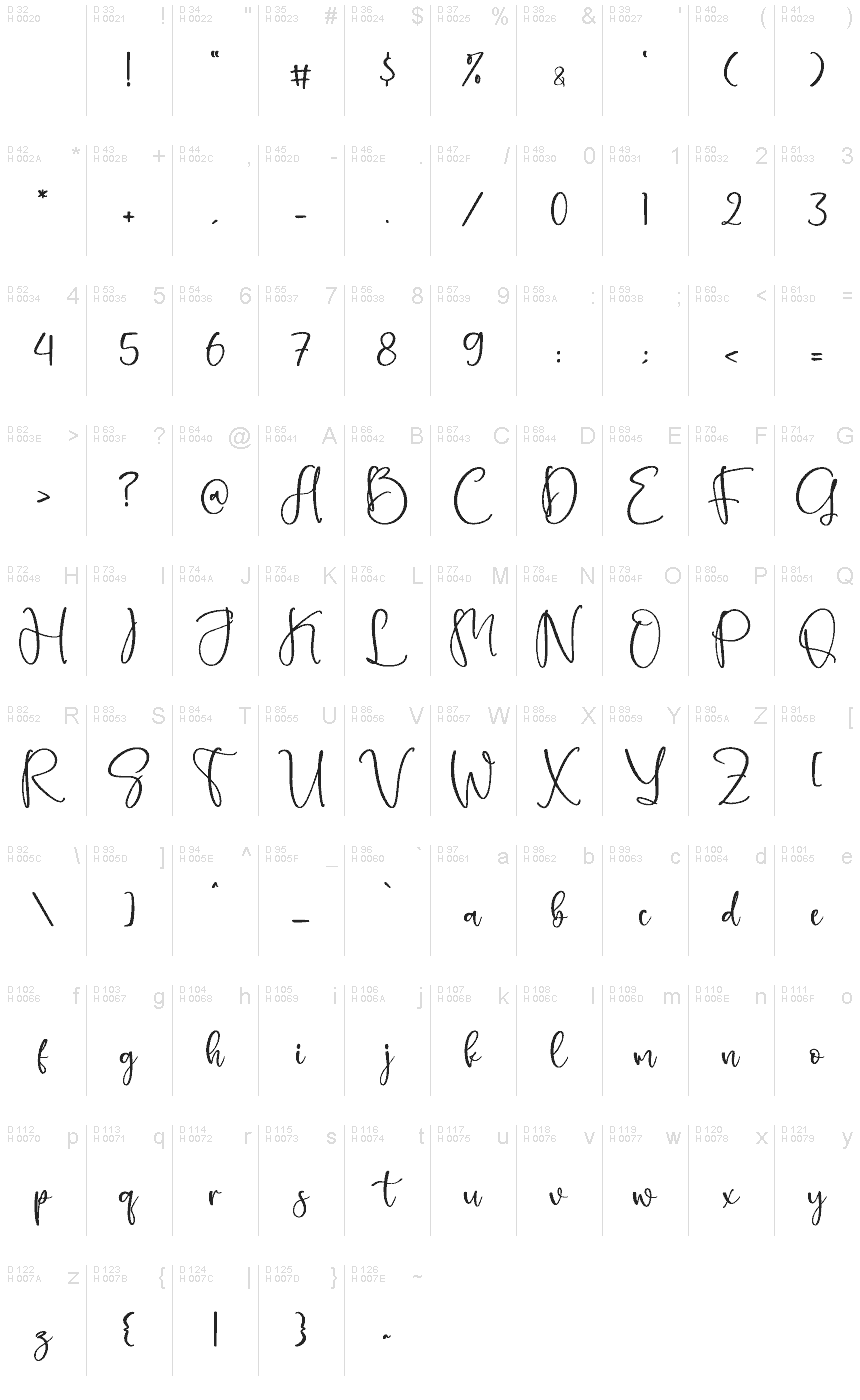
fastelmodern
Fastelmodern font by Letterena Studios is a stylish handwritten font that combines a modern aesthetic with an elegant, free-flowing design. Its expressive letters possess an approachable charm, seamlessly blending artistry to create an all-occasion typeface.